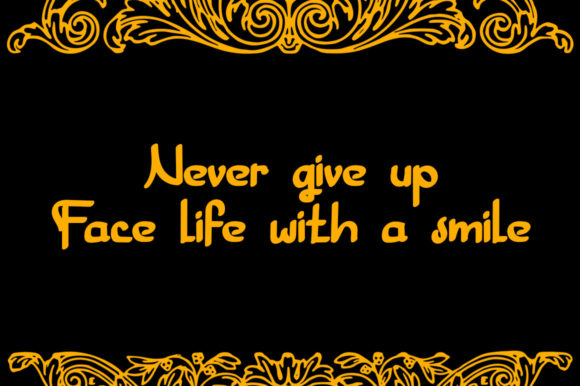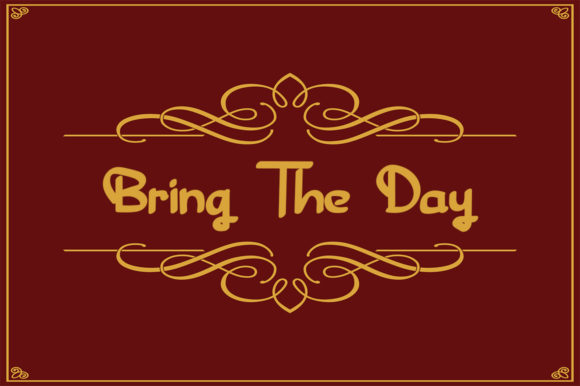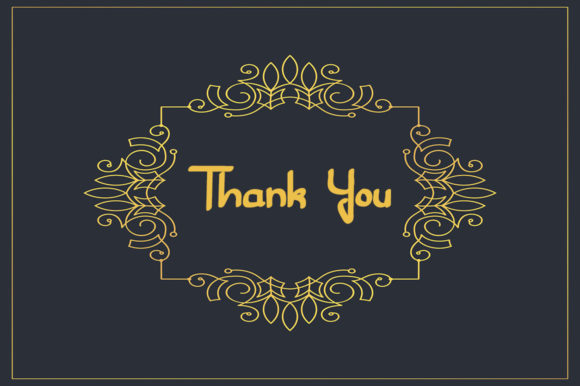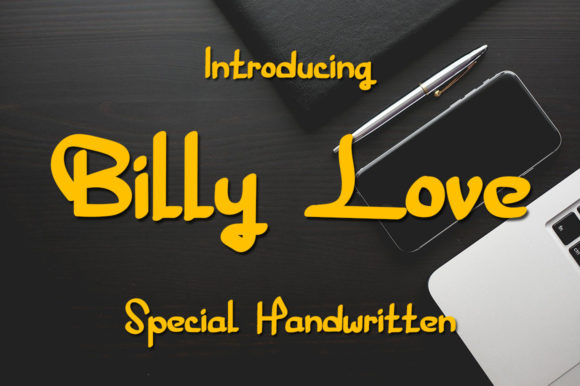
Billy Love Font: The Perfect Addition to Your Creative Projects
Are you a designer, crafter, or DIY enthusiast looking for a unique and charming font to add a personal touch to your projects? Look no further than the Billy Love font! This lovely script font features playful characters that seem to dance along the baseline, making it the perfect addition to your most creative ideas.
What is Billy Love Font?
Billy Love is a beautiful script font that is sure to capture your heart. Its charming and whimsical characters are designed to add a touch of personality to any project. Whether you’re working on a branding project, crafting a handmade card, or creating a unique piece of art, Billy Love font is the perfect choice.
Key Features of Billy Love Font
- Playful Characters: The Billy Love font features playful characters that seem to dance along the baseline, giving your text a lively and energetic feel.
- Charming and Whimsical: The font’s charming and whimsical design makes it perfect for creative projects that require a personal touch.
- Script Font: Billy Love is a script font that is designed to add a touch of elegance and sophistication to your projects.
- Easy to Read: Despite its playful design, the Billy Love font is easy to read, making it perfect for use in a variety of applications.
How to Use Billy Love Font in Your Projects
The Billy Love font is versatile and can be used in a variety of creative projects. Here are some ideas to get you started:
- Branding Projects: Use the Billy Love font to add a personal touch to your branding projects, such as logos, business cards, and letterheads.
- Handmade Cards and Invitations: Add a touch of whimsy to your handmade cards and invitations with the Billy Love font.
- DIY Crafts: Use the Billy Love font to add a personal touch to your DIY crafts, such as scrapbooking, journaling, and mixed media art.
- Graphic Design: Use the Billy Love font in your graphic design projects, such as posters, flyers, and brochures.
Tips for Using Billy Love Font
Here are some tips for using the Billy Love font in your projects:
- Use it Sparingly: While the Billy Love font is beautiful, it’s best to use it sparingly to avoid overwhelming your design.
- Pair it with Other Fonts: Pair the Billy Love font with other fonts to create a unique and interesting design.
The Billy Love font is a beautiful and charming script font that is sure to add a personal touch to your creative projects. Its playful characters and whimsical design make it perfect for designers, crafters, and DIY enthusiasts. With its versatility and ease of use, the Billy Love font is a great addition to any creative project.
- What type of font is Billy Love? Billy Love is a script font.